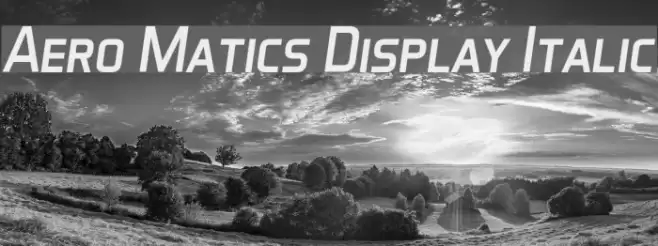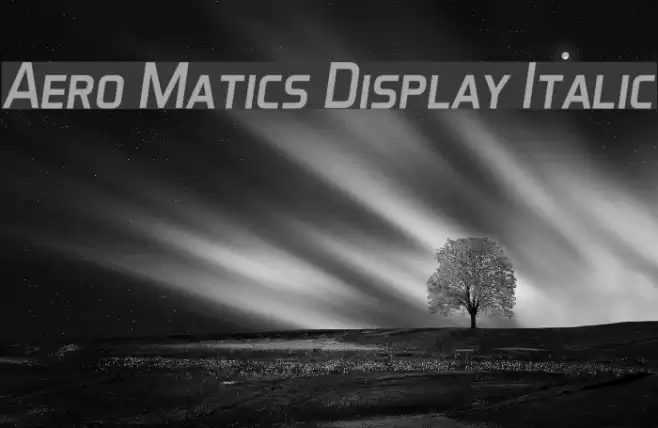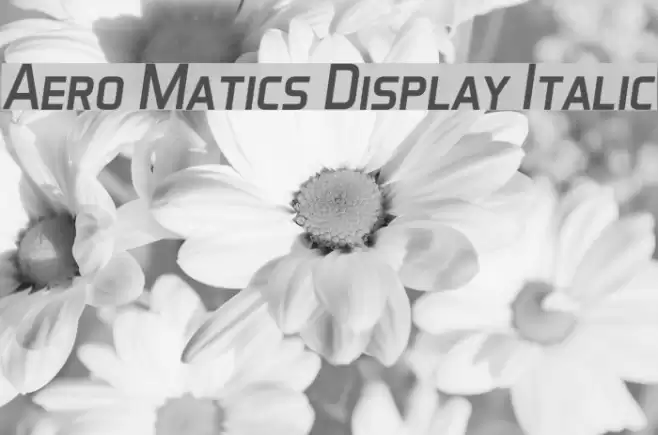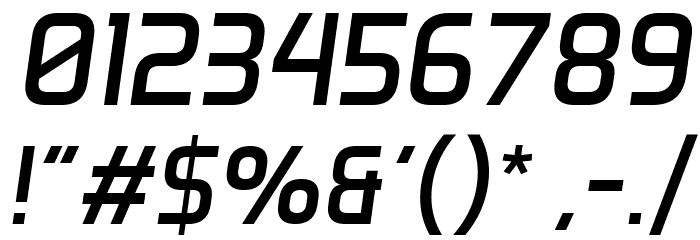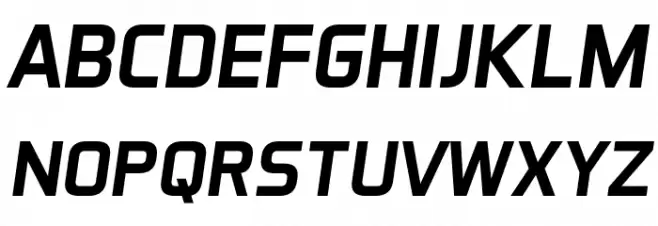
Aero Matics Display Italic Font
Aero Matics Display Italic Description
This font features a sleek, modern design with a distinct italic slant, giving it a dynamic and forward-moving appearance. The characters are clean and geometric, with a consistent stroke width that maintains readability while adding a touch of sophistication. The uppercase and lowercase letters are well-proportioned, and the numerals are clear and easy to distinguish. Special characters are designed with the same attention to detail, ensuring a cohesive look across all text elements. This font's style is both contemporary and versatile, making it suitable for a wide range of applications.
A sleek, modern italic font with a geometric design and consistent stroke width from Uncategorized fonts.
- Proposed Projects: Ideal for branding, advertising, digital interfaces, and editorial design projects.
- Use Case: Headlines, Logos, Digital interfaces